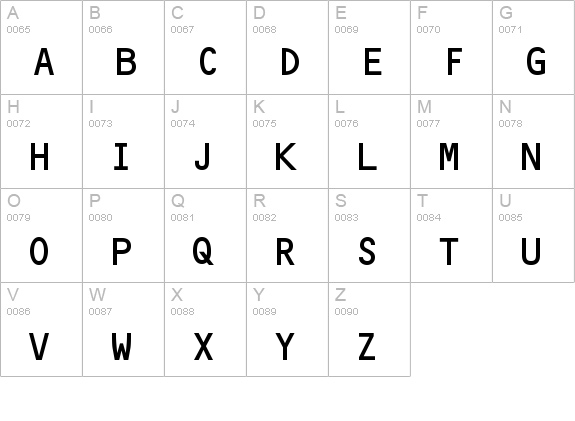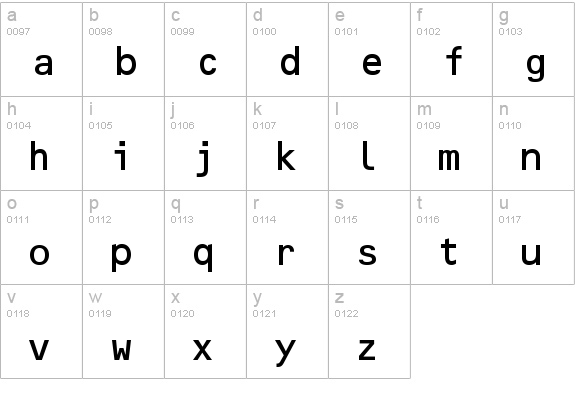
OCRB Alternate Font Details
OCRB Alternate is a versatile and modern font that combines the classic OCRB style with a contemporary twist. Its clean lines and sharp edges make it ideal for various design projects, from business cards to posters. The font's alternate characters add a unique touch to any text, giving it a fresh and dynamic look. Best of all, OCRB Alternate is available for free download at FontsMarket.com. This means you can easily access this high-quality font without any cost, making it a valuable resource for designers and creatives looking to enhance their projects. Whether you're working on a professional presentation or a personal project, OCRB Alternate is sure to make a statement with its bold and distinctive appearance. Download it today and elevate your designs with this exceptional font.